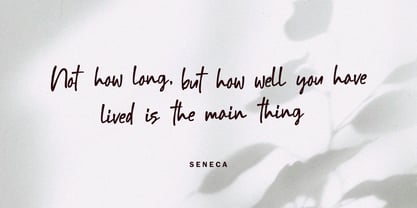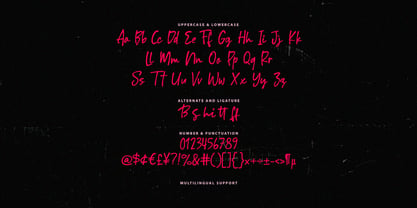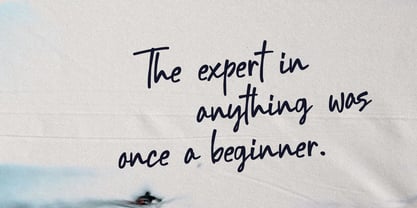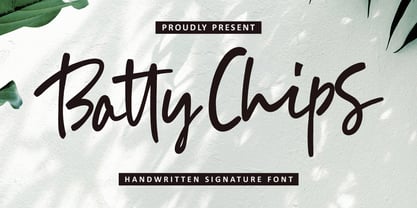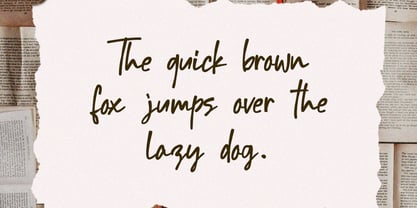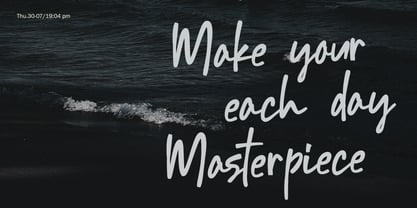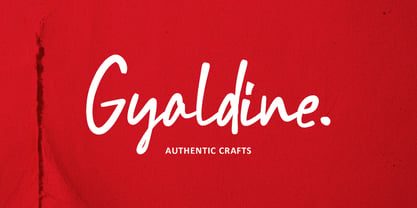
MC Batty Chips
von Maulana Creative
Die Schriftfamilie MC Batty Chips wurde von Gilang Maulana entworfen und von Maulana Creative veröffentlicht. MC Batty Chips enthält 1 Stile. Mehr über diese Familie
Elevate your branding and designs with Batty Chips, a stylish and authentic handwritten signature font. Perfectly capturing the casual, elegant flow of real handwriting, this font adds a sophisticated touch to any project. Batty Chips is designed with versatility in mind, making it the ideal choice for: - Logotypes and Branding: Create memorable and unique business identities, watermarks, and signatures. - Invitations and Stationery: Perfect for wedding invitations, greeting cards, and notes. - Social Media and Quotes: Give your Instagram posts, blog headers, and inspirational quotes an instantly chic, handcrafted feel. - Product and Photography: Add an authentic and professional signature to your physical products or portfolio images.
Designer: Gilang Maulana
Foundry: Maulana Creative